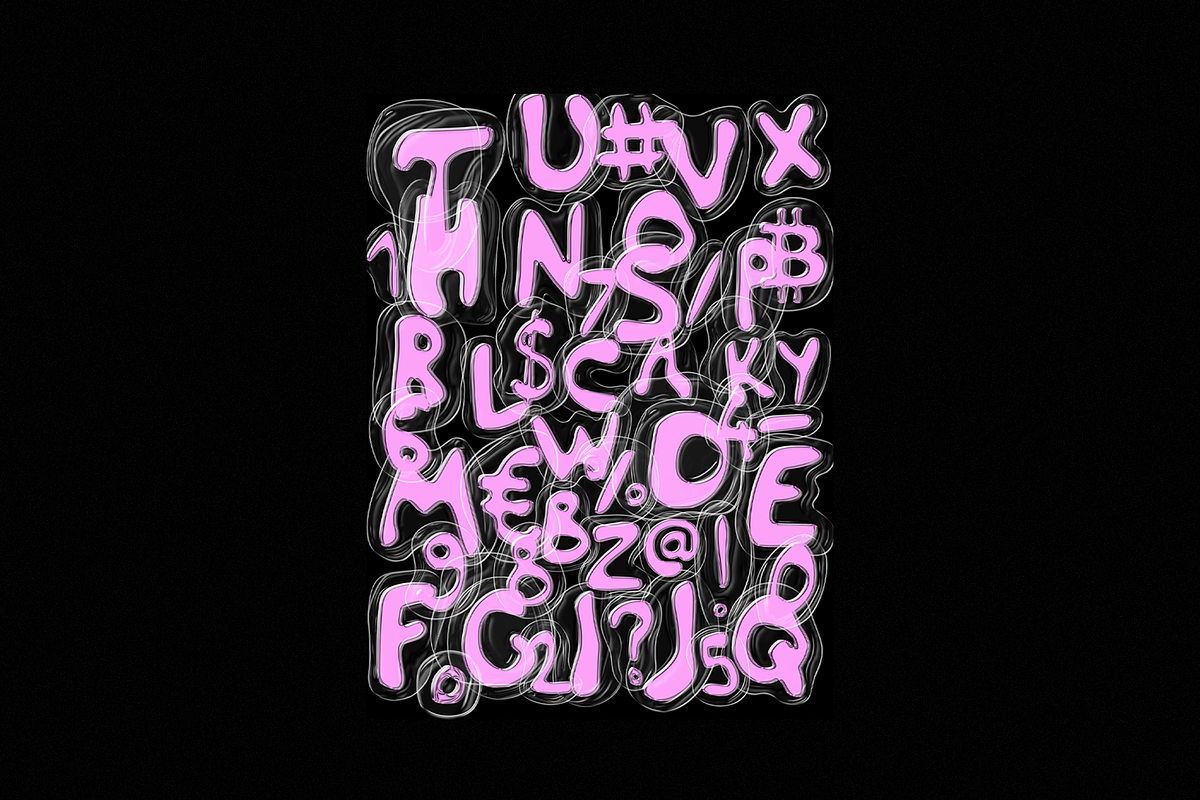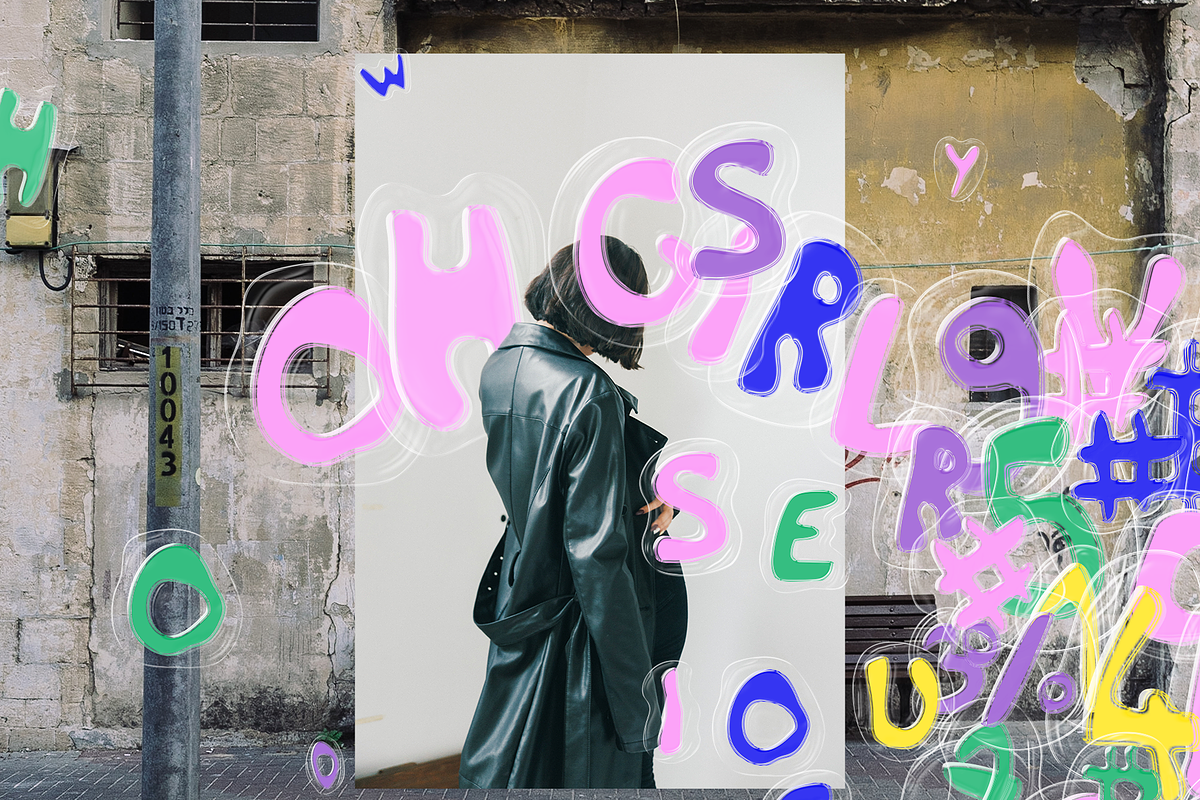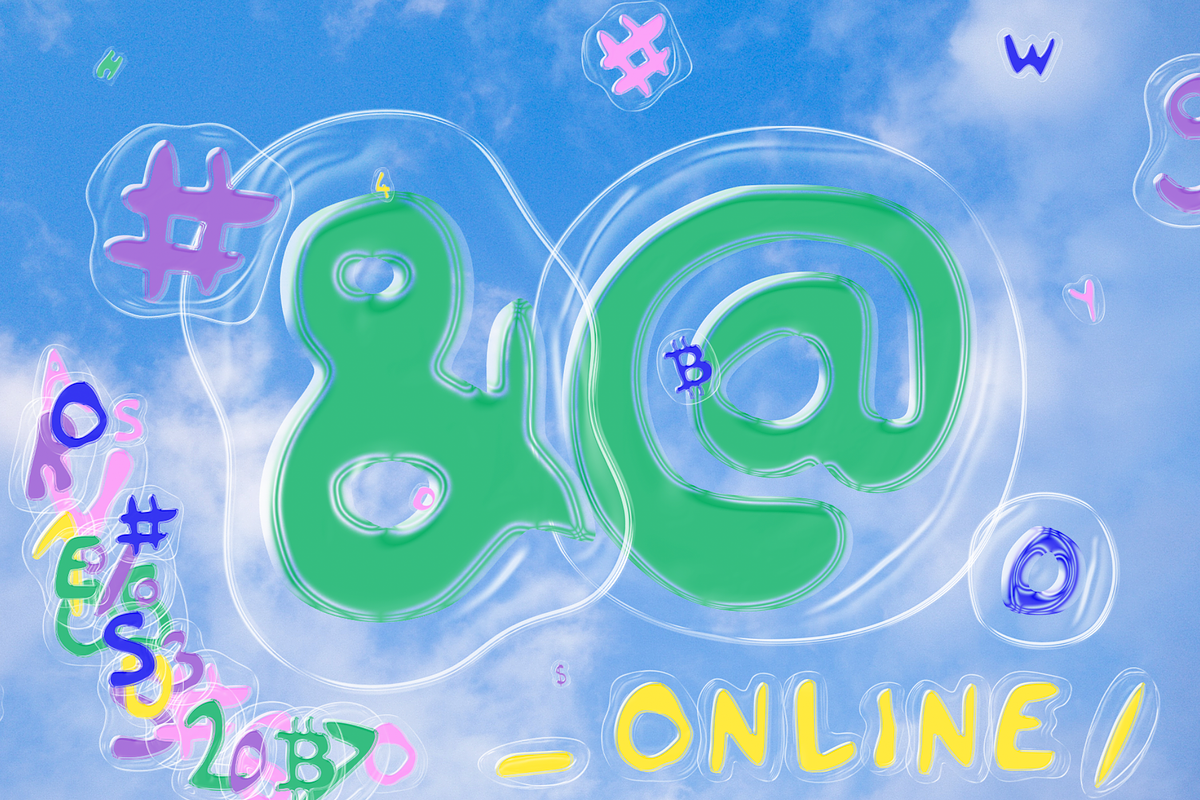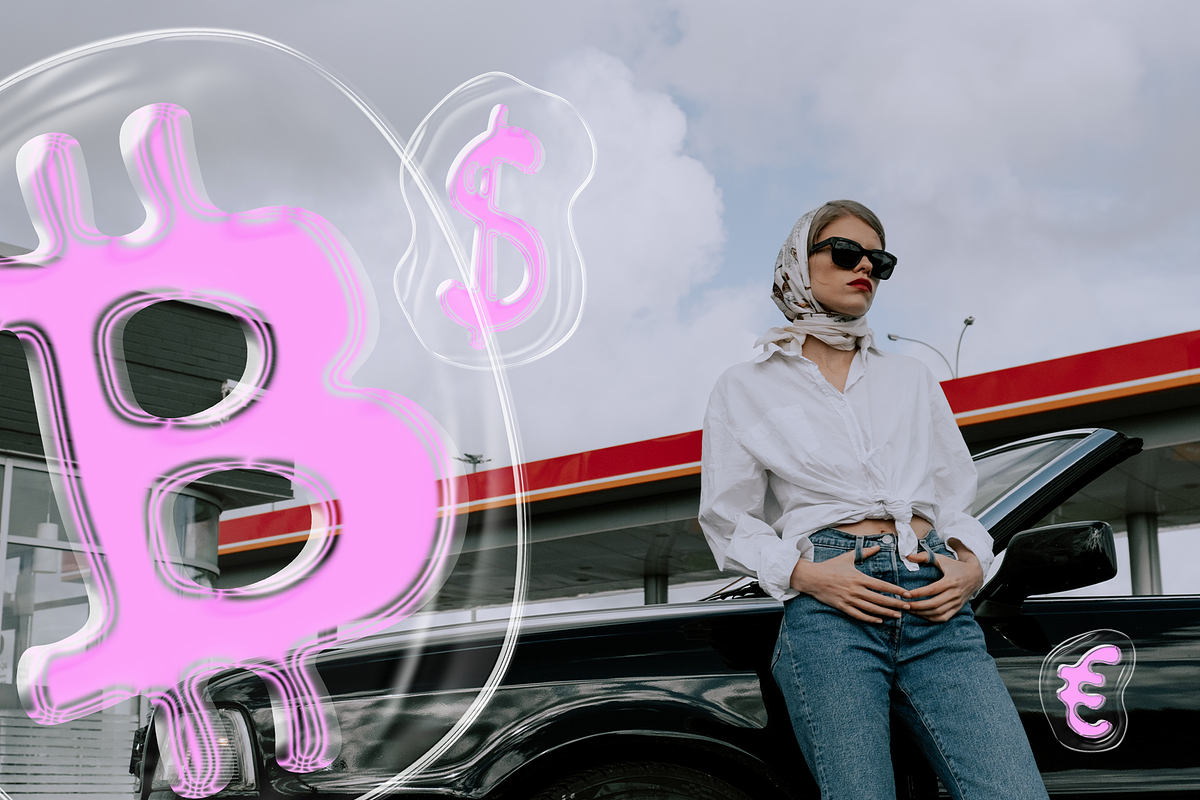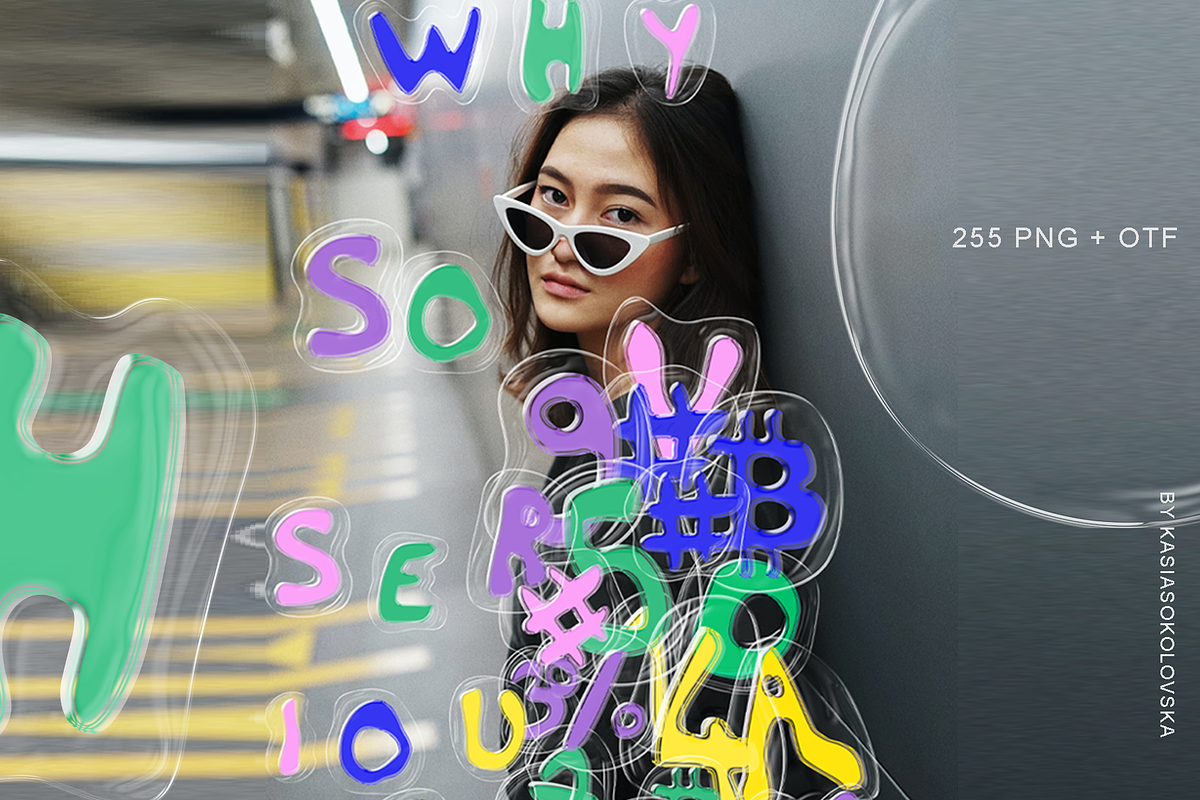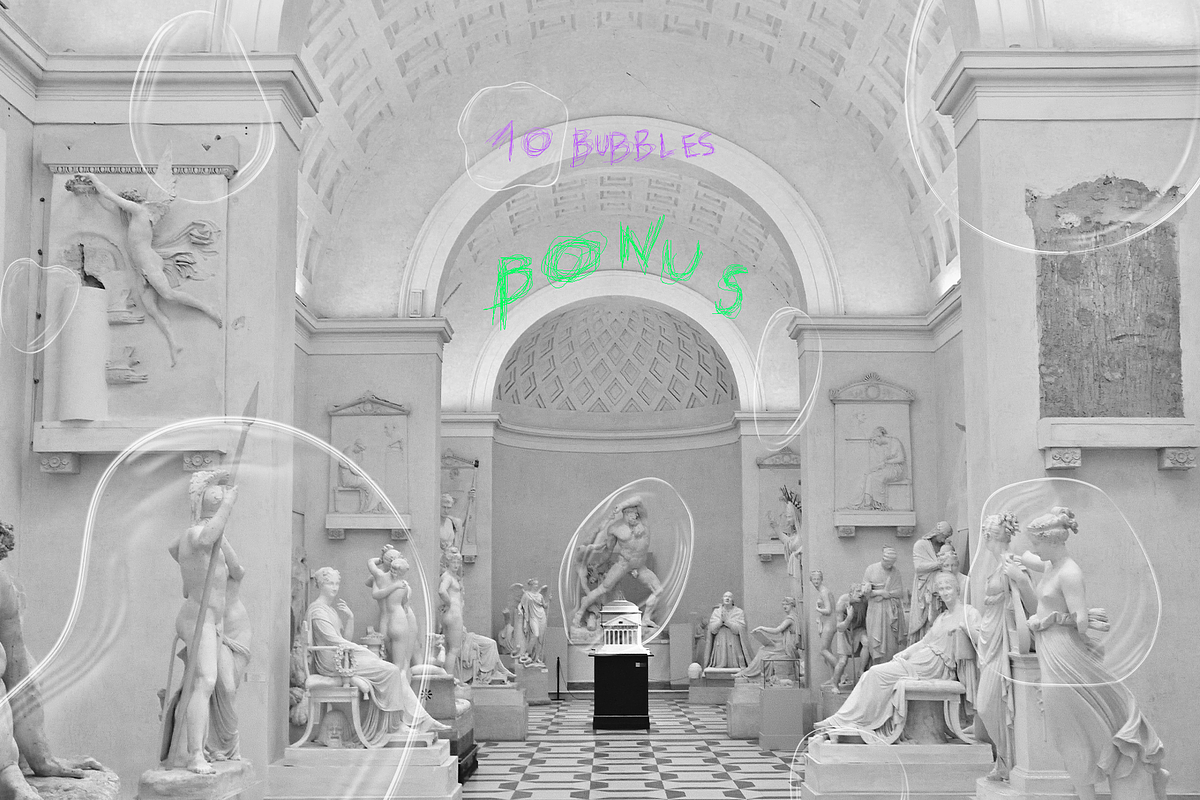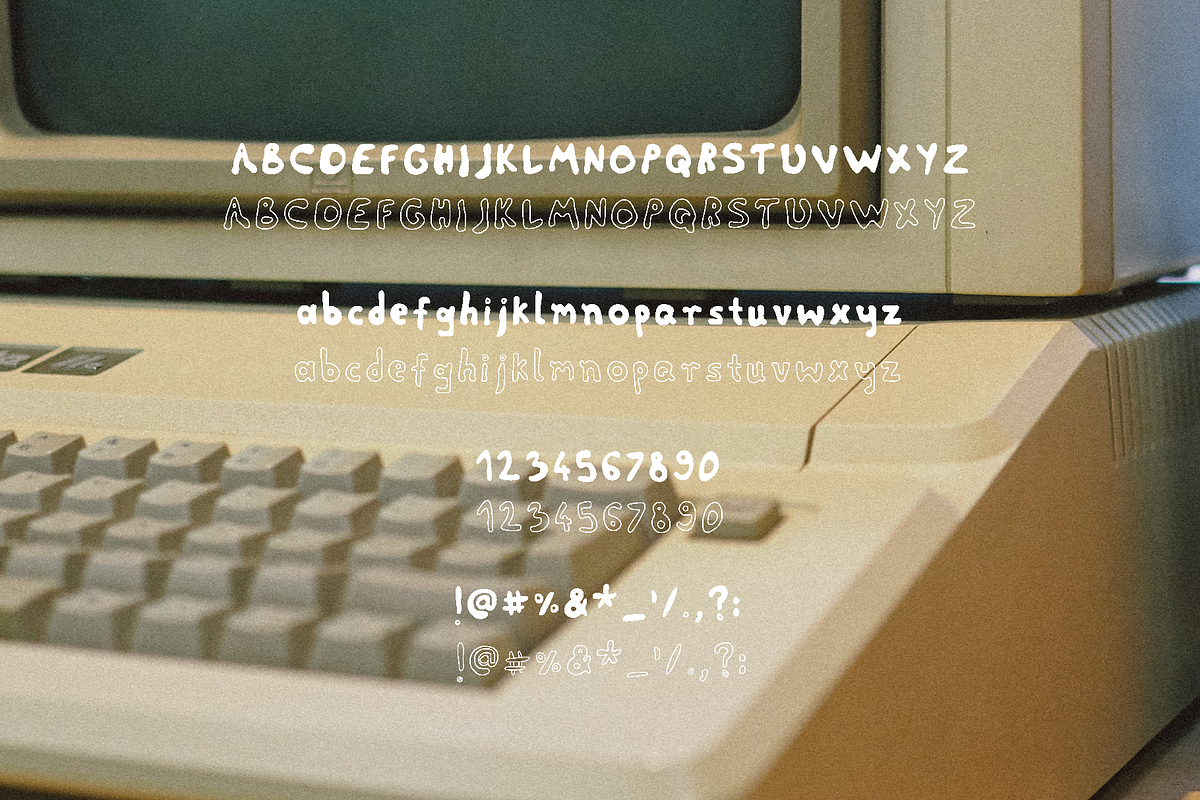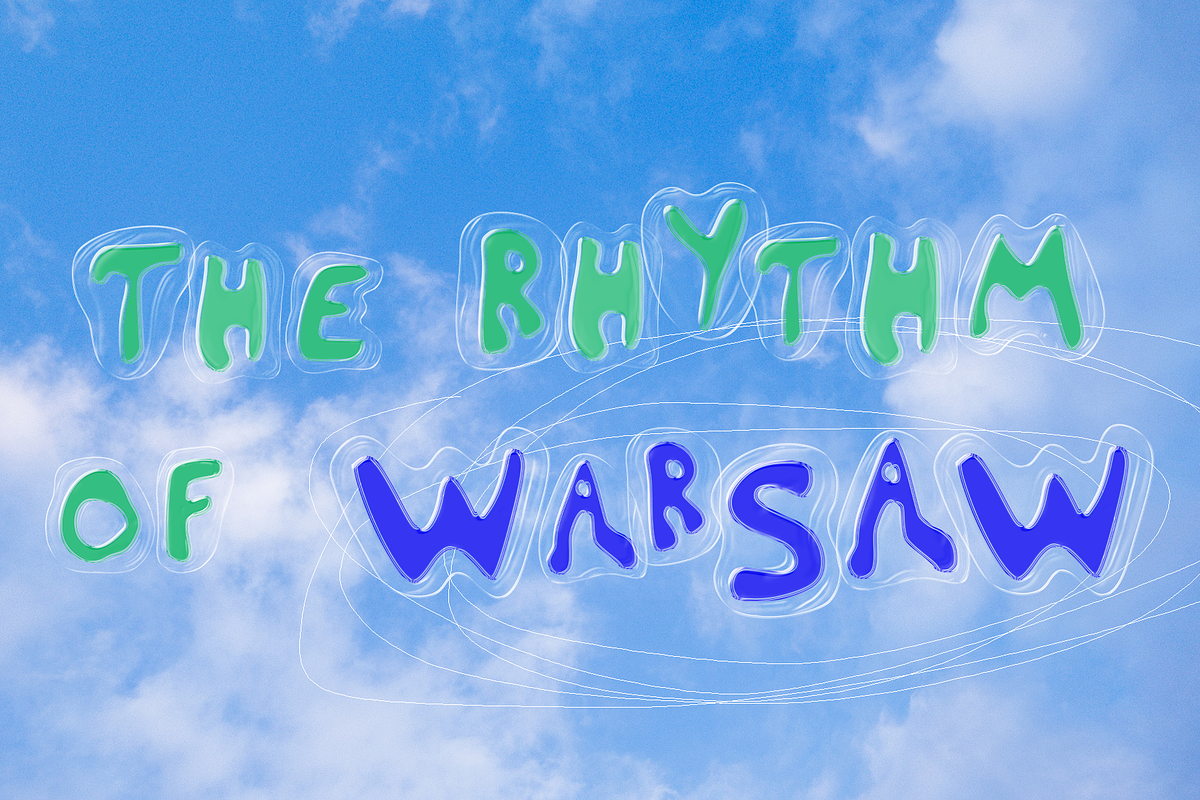
Bubble font, 3D Plastic letters PNG
Hi, there! I'v just made 2nd version of OH BOY font. I stylized PNG letters as a floating bubbles. Do you like it? Inside 255 PNG files and OTF. Use for magazines, posters, online or branding.